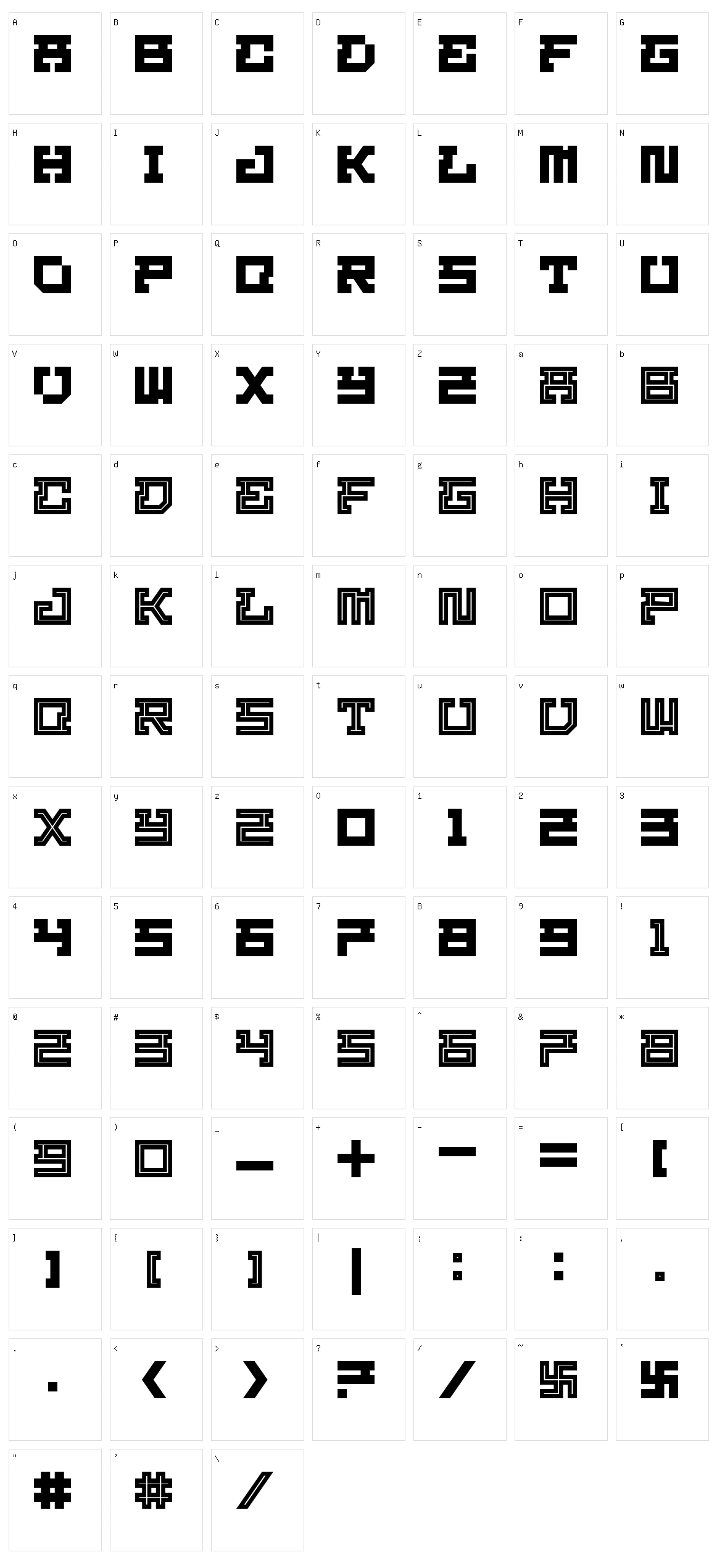
The free font Homigos is carefully designed by Vast, showcasing a thoughtful balance of creativity and usability and falls under the Square font style. When you download the ZIP file, it contains only 481.1 KB of font files, making it lightweight and quick to download. Please review the license details below to understand permitted usage and distribution rights. If license information is not available, we recommend using this font for personal projects only or contacting the author directly for commercial usage permissions.